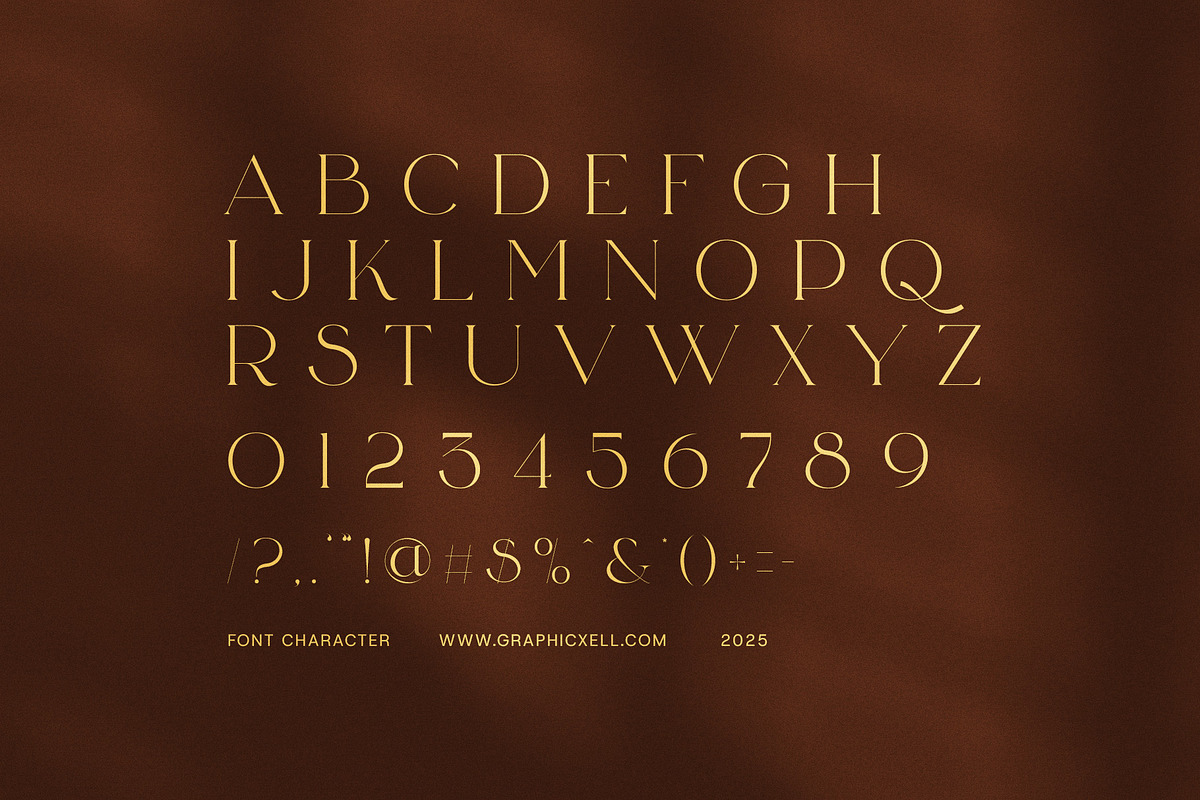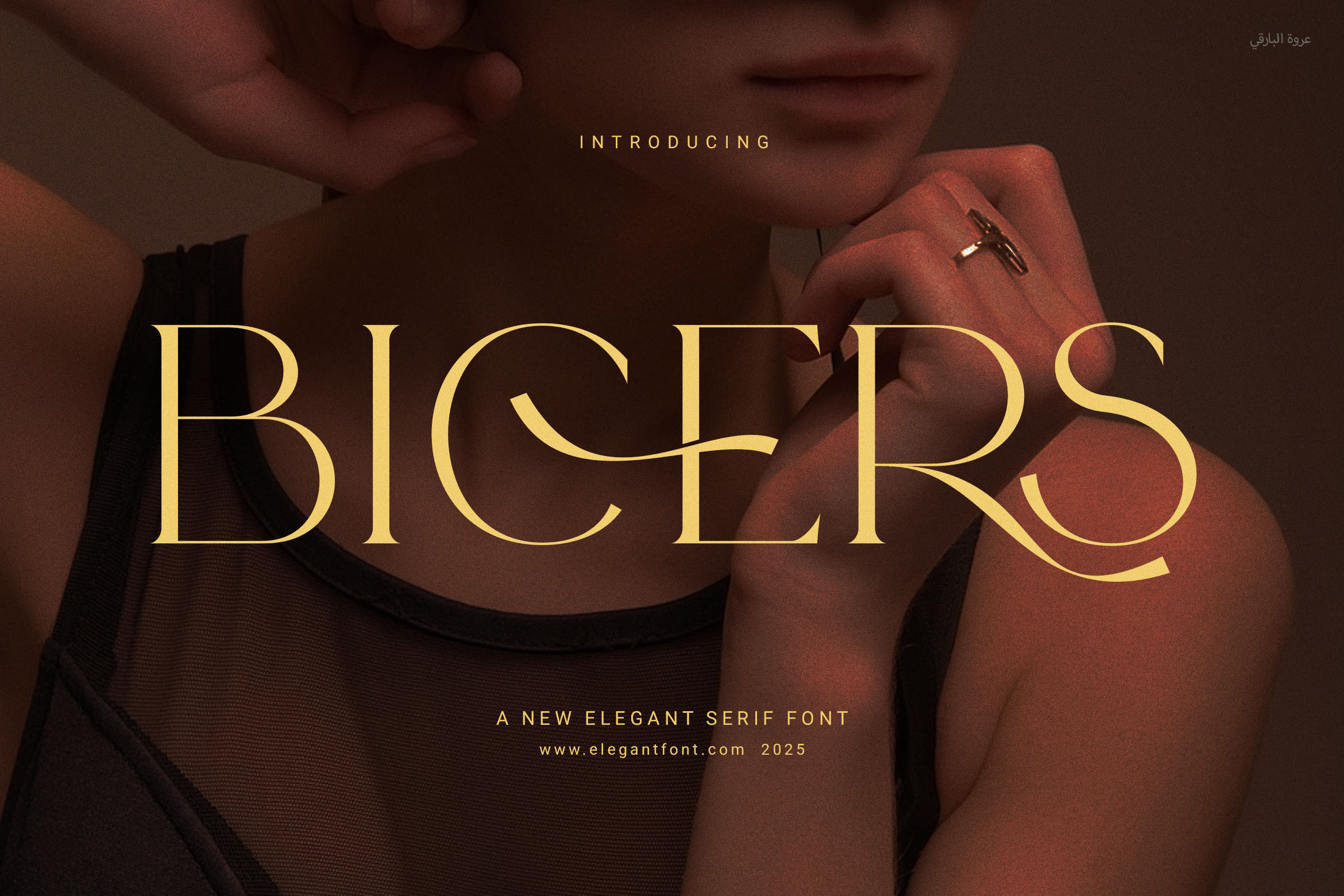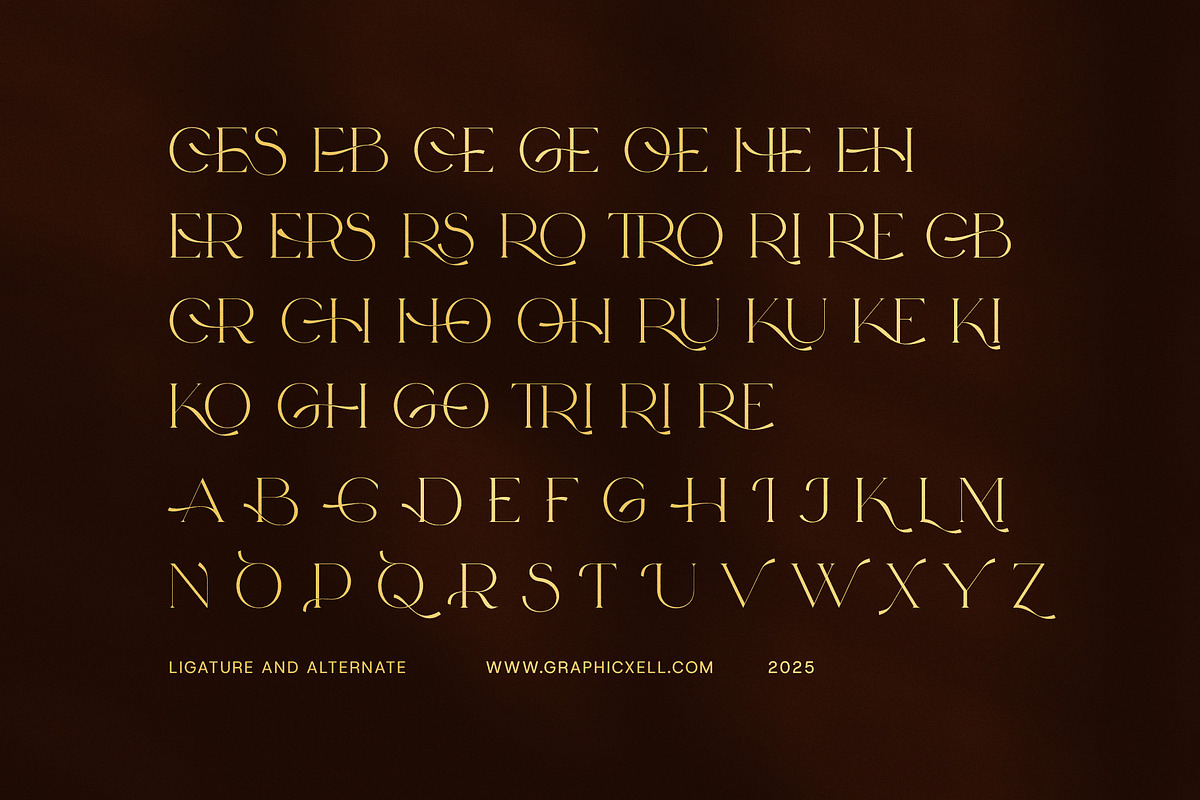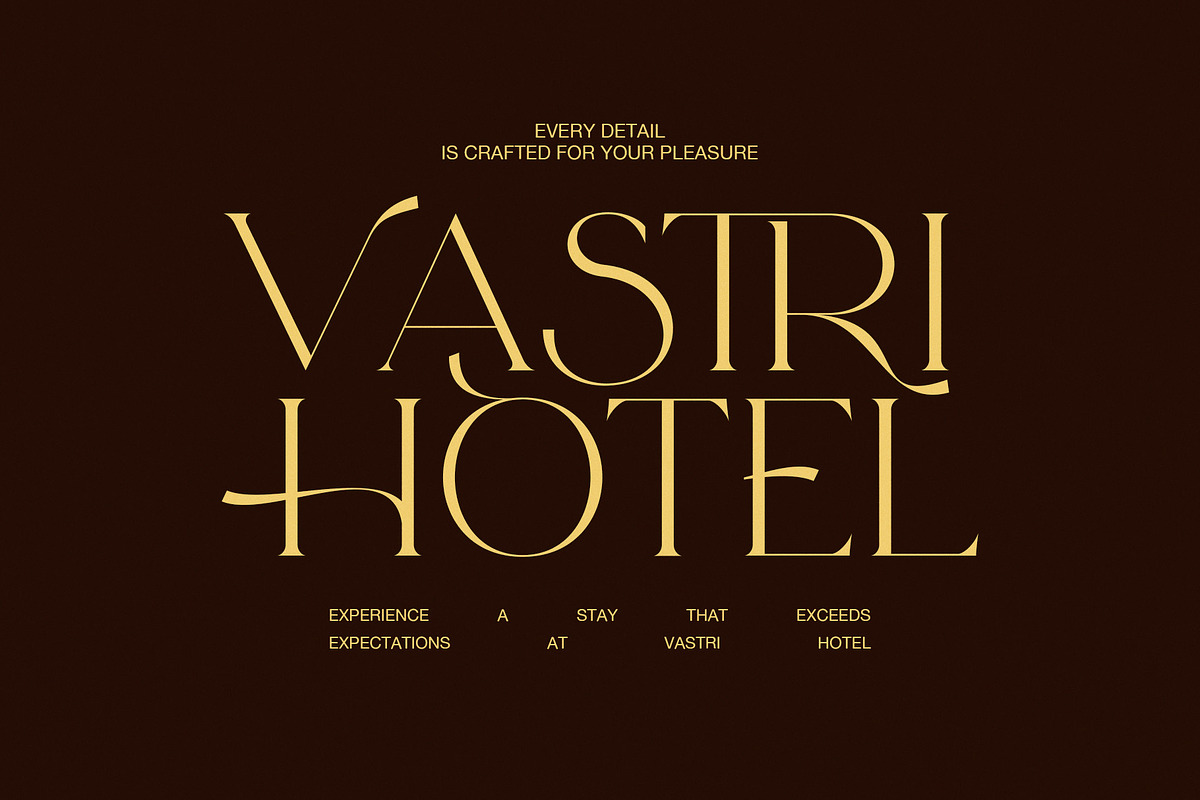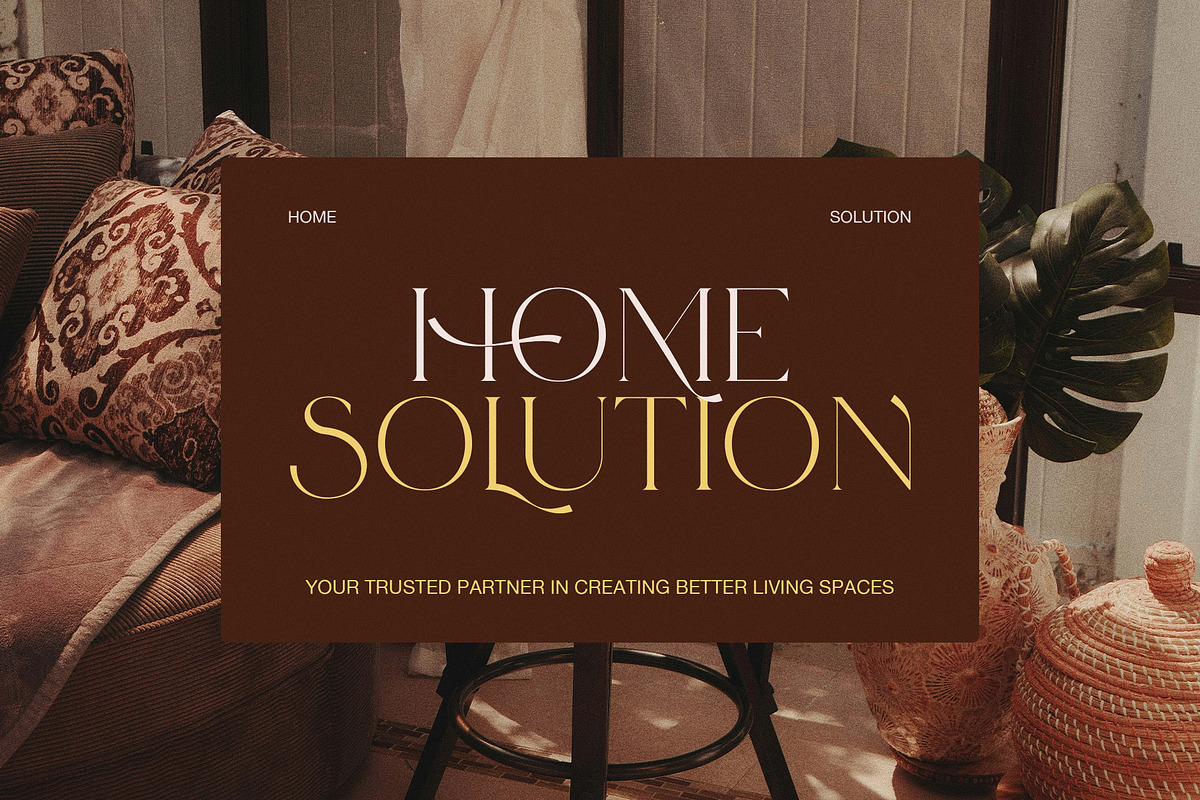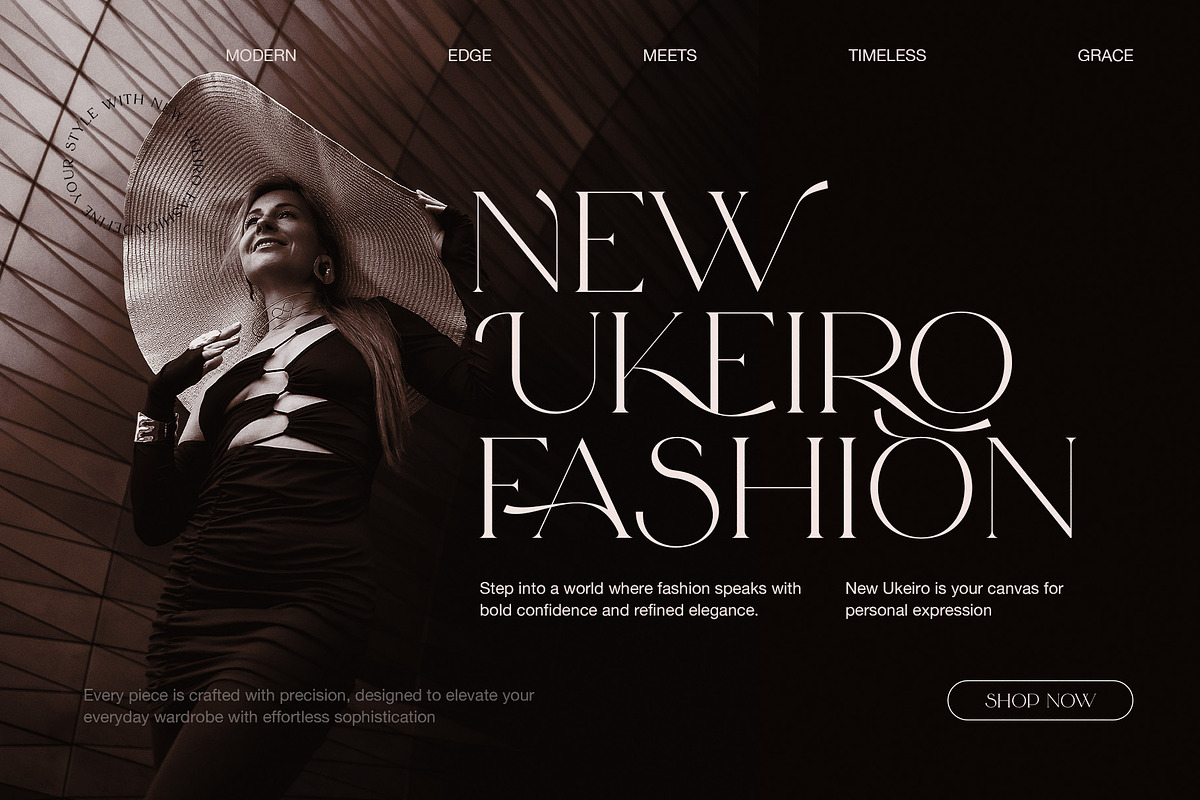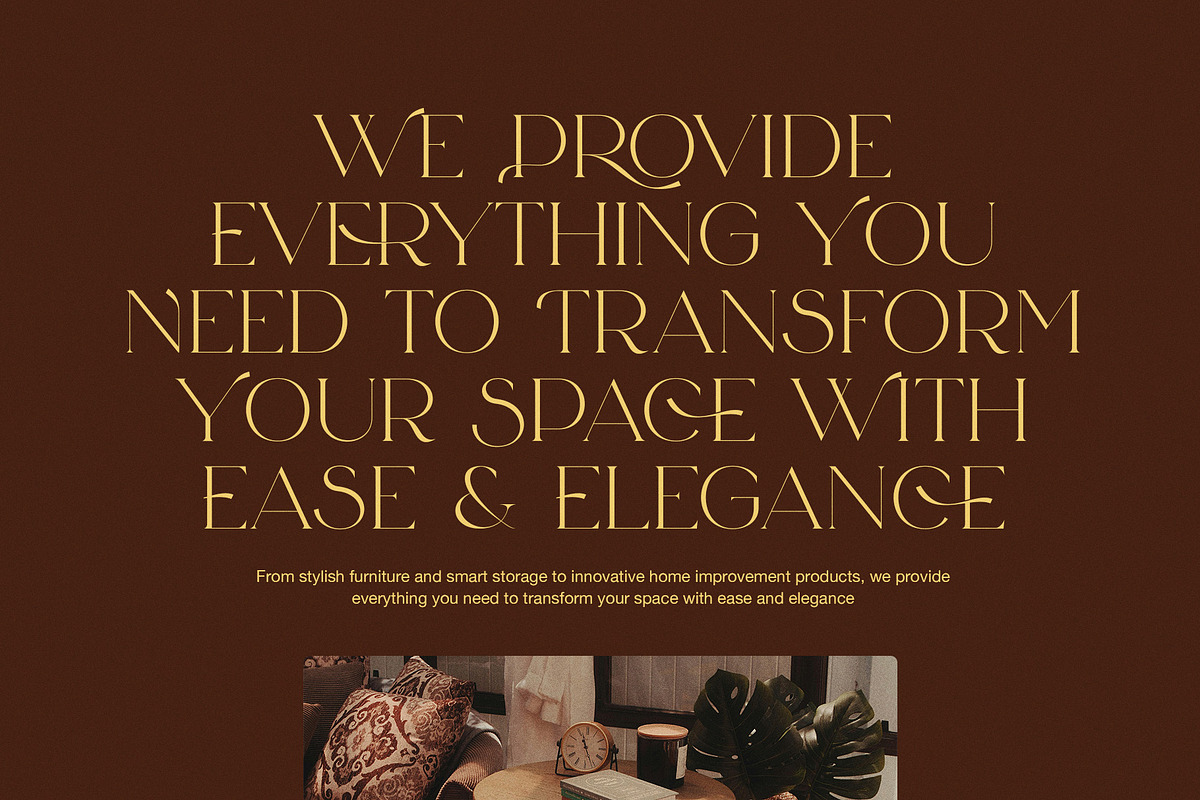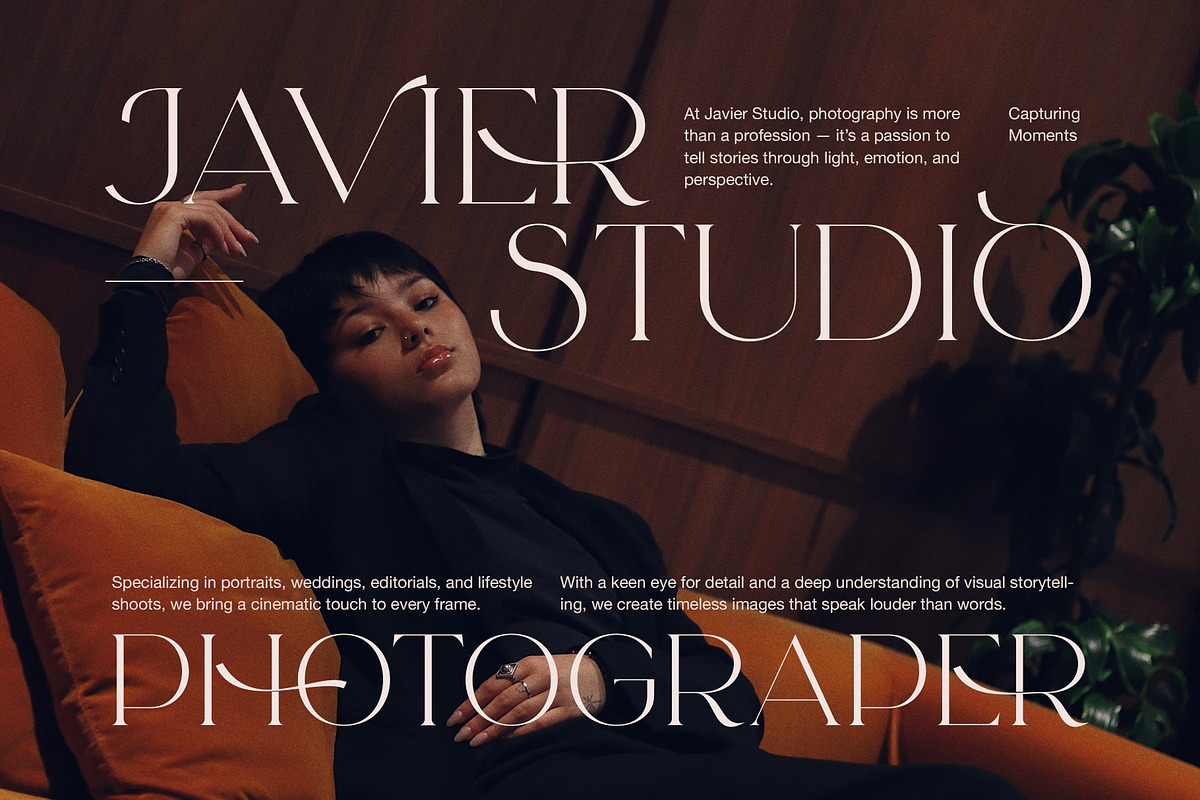
Bicers Elegant Serif Font
✦ Bicers Elegant Serif Font – Where Elegance Meets Simplicity ✦
Bicers Elegant Serif is a stylish, modern serif font created to bring a refined and timeless look to your designs. With its clean lines, smooth curves, and carefully balanced proportions, Bicers offers the perfect mix of beauty and function. This font is ideal for designers who want their work to look professional, polished, and effortlessly elegant.
What sets Bicers apart is its set of functional ligatures, which allow for smoother text flow and a more natural reading experience. As a result, every word feels connected and thoughtfully crafted. Whether you’re designing for a high-end brand or building a personal project, this typeface makes your content stand out in the best way.
Moreover, Bicers is extremely versatile. You can use it for everything from logos and packaging to editorial layouts, websites, and social media graphics. Its readability and modern appeal make it a strong choice for both print and digital use. Because of its clean structure, it fits beautifully in luxury, fashion, beauty, food, and lifestyle brands.
✦ Key Uses for Bicers Elegant Serif:
Premium branding and packaging
Magazine and editorial layouts
Fashion and boutique logos
Website headers and digital ads
Food and beauty product labels
Social media content and marketing
So, if you're searching for a typeface that blends charm with clarity, Bicers delivers. It’s easy to use, rich in personality, and designed to give your work a professional, polished edge.